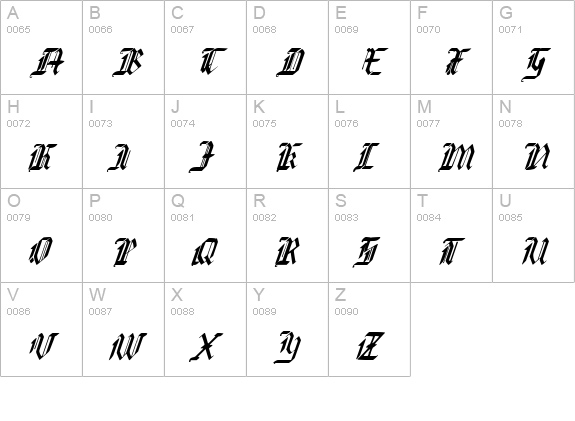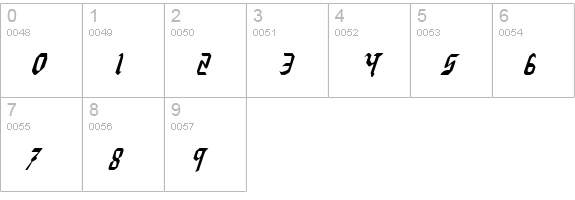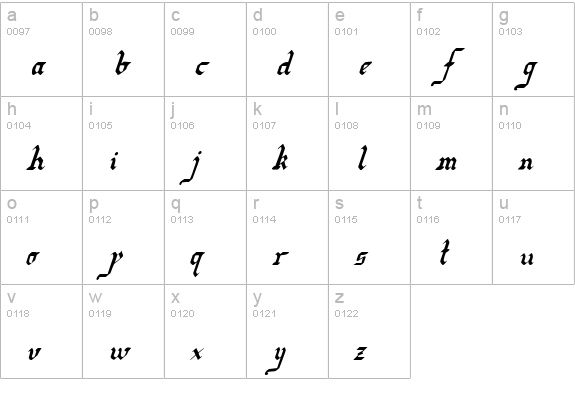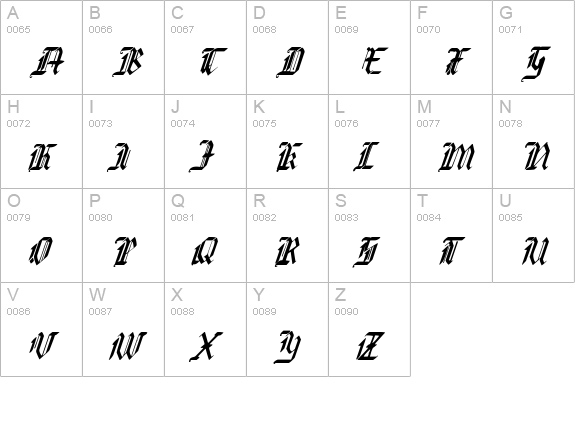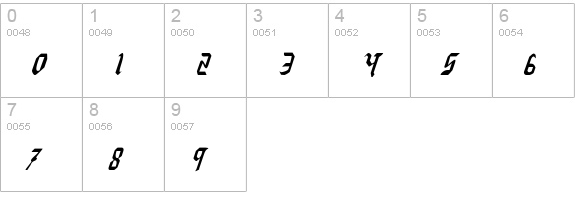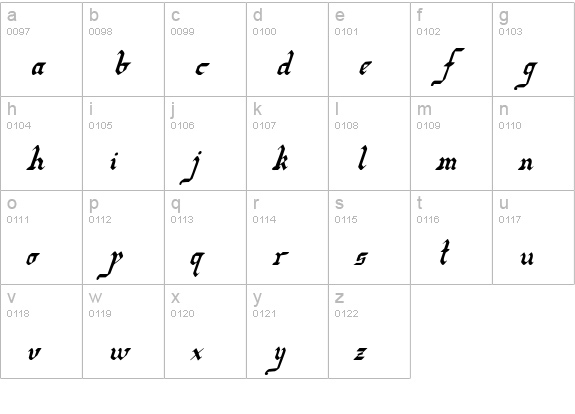
Redcoat Condensed Italic is a distinctive, condensed-width, italic variant in the Redcoat typeface family \xE2\x80\x94 well suited to design and typography projects.
Redcoat Condensed Italic font is a sleek and modern typeface that exudes sophistication and elegance. Its stylish slanted design adds a touch of flair and creativity to any project, making it perfect for both professional and creative use. The condensed style of this font allows for a more compact and streamlined look, ideal for saving space while maintaining readability. With its sharp, refined letterforms and unique italicized slant, Redcoat Condensed Italic font is sure to make a statement in any design application. Whether used for headlines, body text, or branding, this font is versatile and eye-catching. Best of all, Redcoat Condensed Italic font is available for free download at FontsMarket.com. This means you can easily access and use this high-quality typeface in your projects without any cost. Don't miss out on the opportunity to enhance your designs with the modern and elegant style of Redcoat Condensed Italic font. Download it today and elevate your typography game!